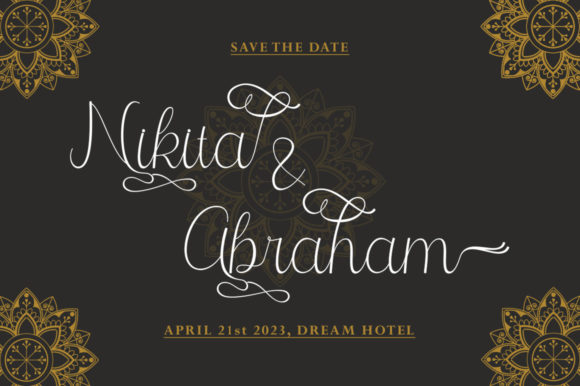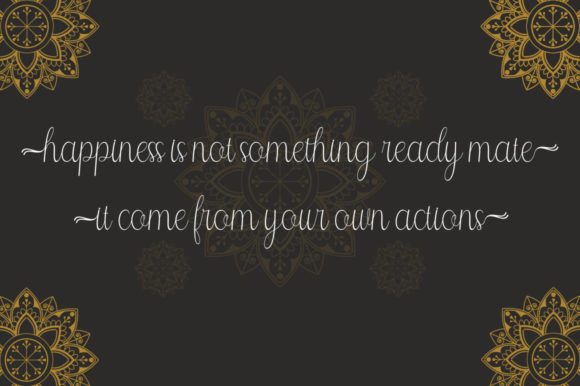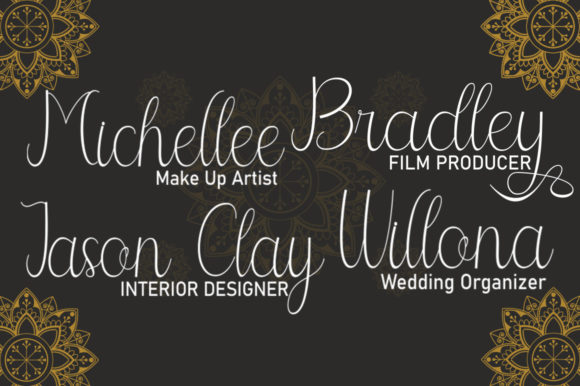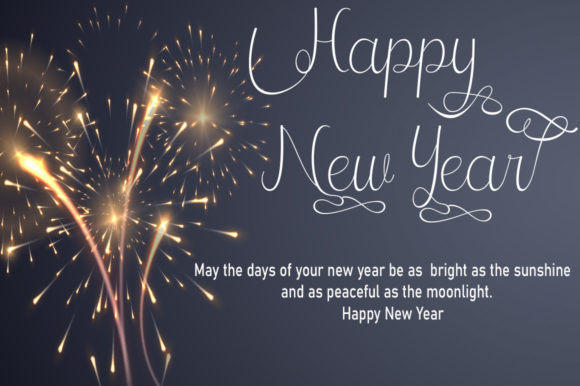
The Joy of Handwritten Perfection: Beraldino Script Font
Do you remember that moment when you first discovered the magic of a beautiful handwritten font? For many designers, it’s a moment that sparks creativity and sets the tone for a project’s success. Whether it’s a wedding invitation, a logo, or a social media post, the right font can elevate your message and leave a lasting impression.
Enter Beraldino Script Font, an exquisite handwritten font designed to bring a touch of elegance and sophistication to your designs. This versatile font is perfect for creating beautiful typography that feels both classic and contemporary. With its PUA encoding, you’ll have access to all glyphs and swashes, giving you the freedom to experiment and create unique designs.
Beraldino Script Font Key Features
- Font Style: Script, elegant, and cursive font, ideal for invitations, wedding cards, and other formal events.
- Unique Characteristics: Distinctive swashes and flourishes, adding a touch of sophistication and elegance to any design project.
Beraldino Script Font Review
I recently had the chance to work with the Beraldino Script Font, and I must say it’s a beautiful addition to any design project. ✨ Its elegant and refined look makes it perfect for creating a luxurious or vintage feel in your designs.
Here are some of the things that work well with this font:
- Its unique and distinctive style sets it apart from other script fonts, making it a great choice for projects where you want to add a touch of sophistication.
- The font is highly legible, even at smaller sizes, making it suitable for a wide range of applications, from logos to body text.
- The font’s versatility allows it to work well with a variety of design styles, from modern to traditional.
- The font may not be suitable for projects that require a more modern or edgy feel, as its classic style may come across as too formal.
- The font’s complexity may make it difficult to pair with other fonts, especially those with simpler designs.
- Some users may find the font’s lines to be slightly too thick, which can affect the overall balance of the design.
Overall, I think the Beraldino Script Font is a great choice for designers who want to add a touch of elegance and sophistication to their projects. While it may not be suitable for every design style, it’s definitely worth considering for projects where a classic, refined look is desired.
Tips for Getting the Most Out of Beraldino Script
Use Beraldino Script to add a touch of elegance and sophistication to your designs.
Pair it with a bold font for contrast and visual interest.
Use it for headings, titles, and quotes to make a lasting impression.
Beraldino Script is perfect for:
Quotes and inspirational graphics